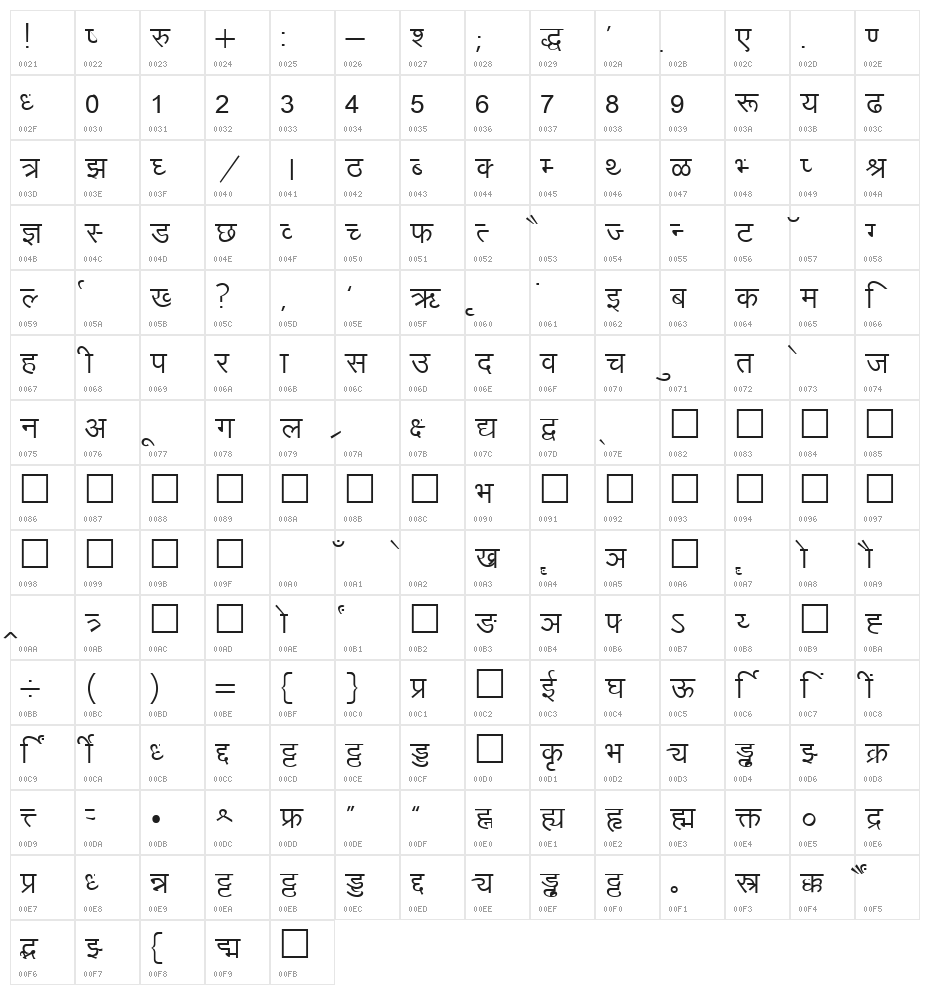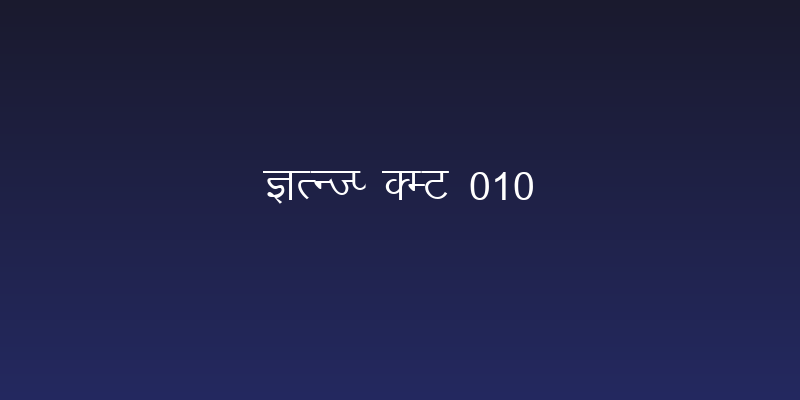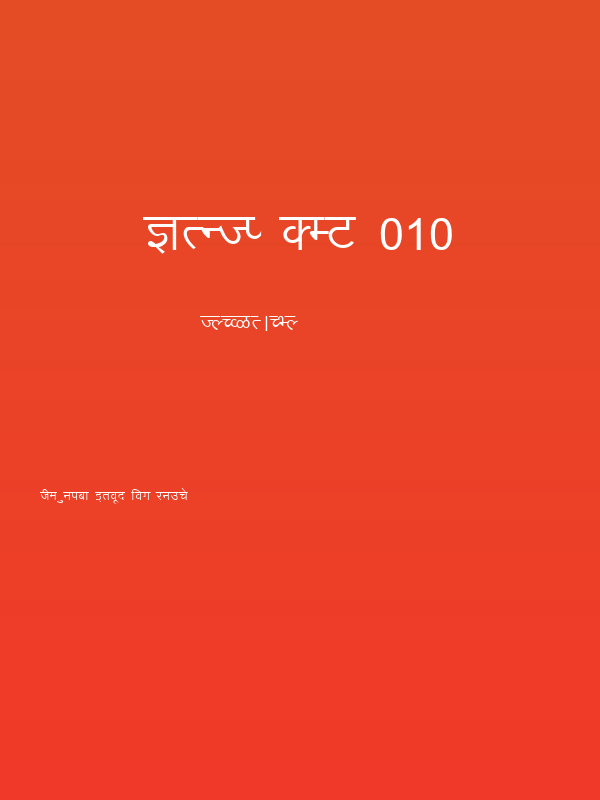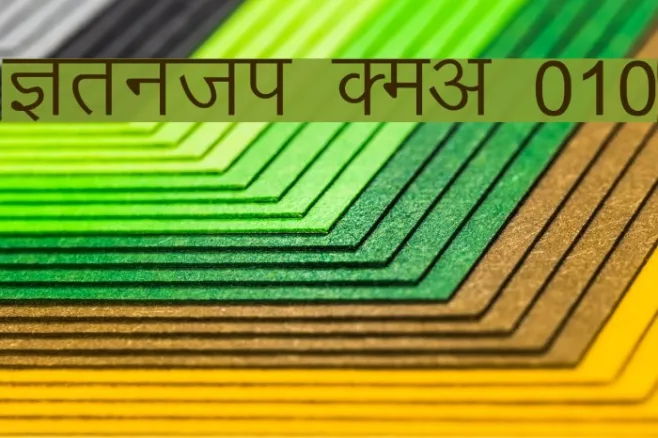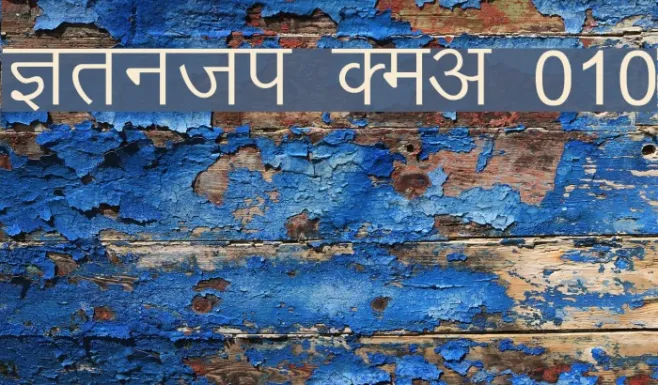
Kruti Dev 010 Font
Kruti Dev 010 Description
This font features a traditional Devanagari script style, commonly used for writing Hindi and other Indian languages. The characters are well-defined with a classic appearance, showcasing a balance between readability and aesthetic appeal. The strokes are consistent and the script maintains a uniform thickness throughout, which enhances its legibility. The numerals are straightforward and align well with the overall design. Special characters are included, maintaining the script's integrity and style. This font is suitable for both digital and print media, providing a versatile option for various applications.
| Use Case | Body text, Educational materials, Cultural publications |
| Proposed Projects | Ideal for educational materials, cultural publications, and digital content in Hindi or other Indian languages. |